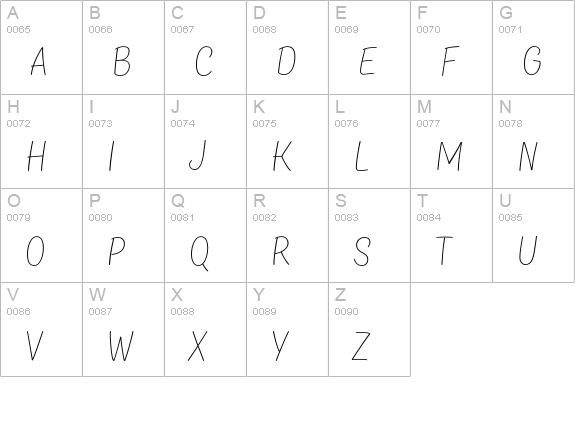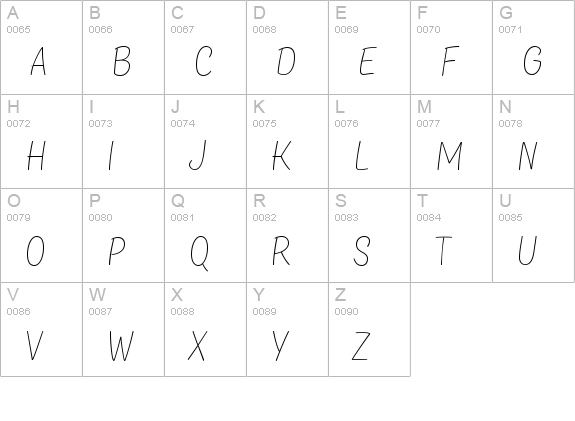
TT Masters Thin Font Details
TT Masters Thin is a delicate, low-contrast variant in the TT typeface family \xE2\x80\x94 well suited to fashion editorial, minimal branding, and high-contrast display.
TT Masters Thin is a sleek and elegant typeface that exudes sophistication and modernity. With its delicate strokes and clean lines, this font is perfect for creating a refined and polished look in any design project. Whether you're working on branding, editorial design, or web design, TT Masters Thin will add a touch of class and sophistication to your work. The best part? TT Masters Thin is available for free download at FontsMarket.com. Simply visit the website to download this beautiful font and start using it in your projects right away. Don't miss out on the opportunity to enhance your designs with this stylish and versatile typeface.